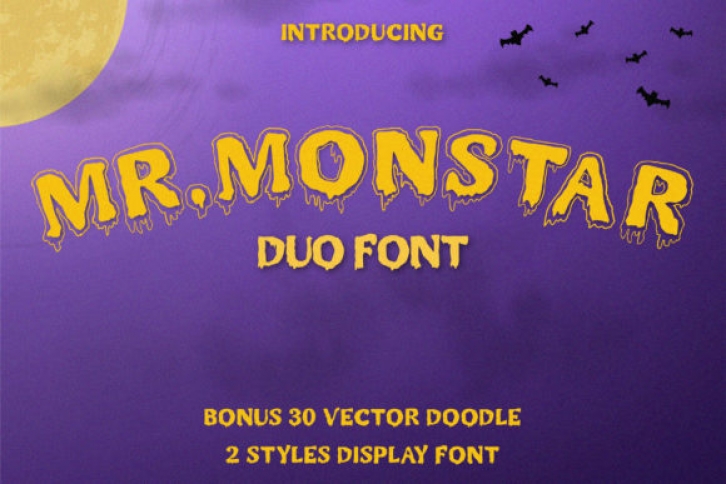
Mr. Monstar is a display typeface that is perfect for Halloween or any spooky design. Use it for any design project that requires a personalized appearance!